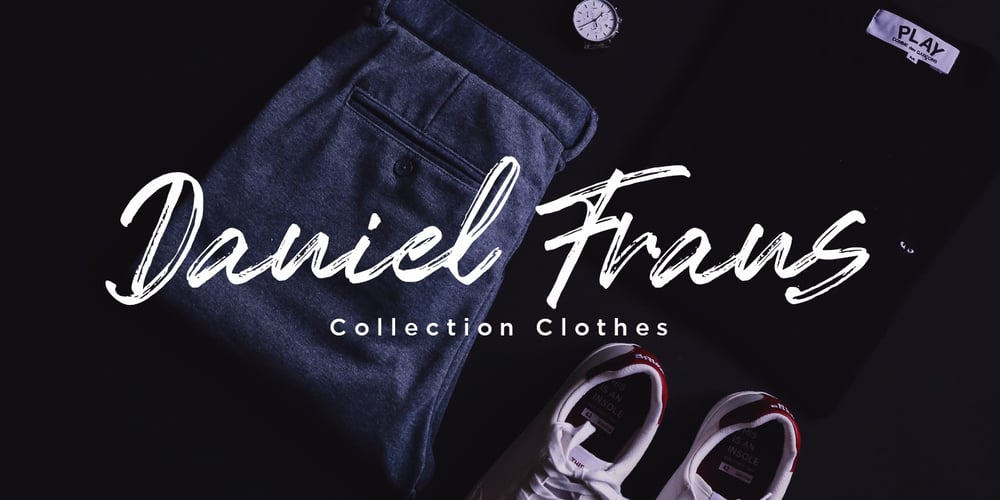
Romeo Fans Font Family was designed by Sarwo Edhi Prayitno and published by Haksen. Romeo Fans contains 3 styles and family package options. Romeo Fans is a natural brush script with texture and similar to hand written. I designed it by hand and I really hope you will enjoy using this font. I love using this one with layer masks in Photoshop, it really looks natural written. Romeo Fans Script includes a couple ligatures to make everything look totally hand-done, it also contains other additional features like swashes and spots. What’s Included: – Ligatures – Numbers + Punctuation – Non-English support – Swashes – Spots Please contact me if anything question, I’m glad to help. Happy Designing!